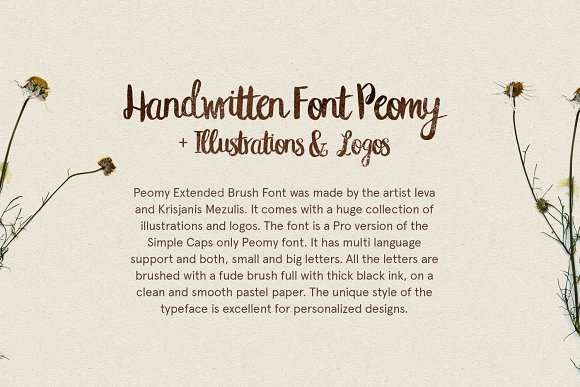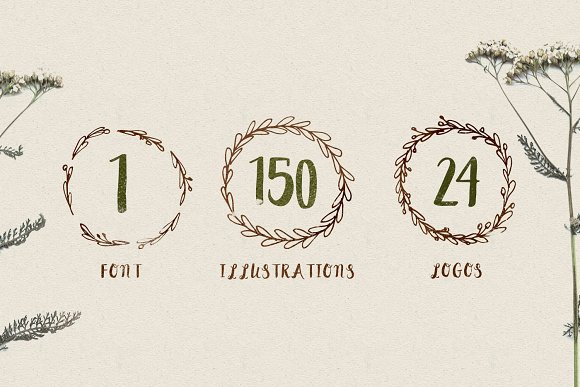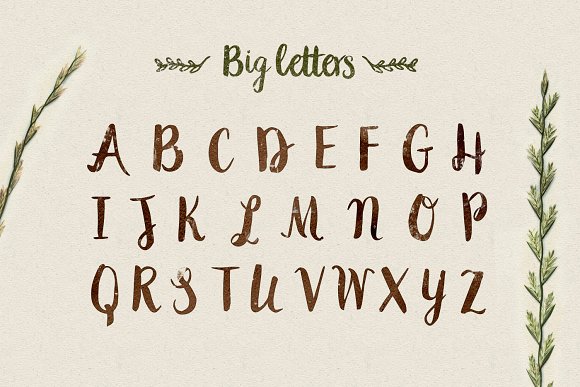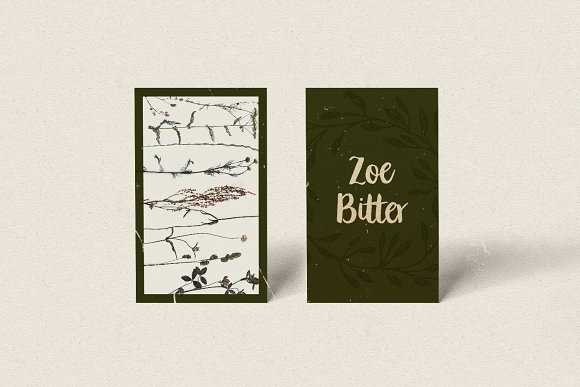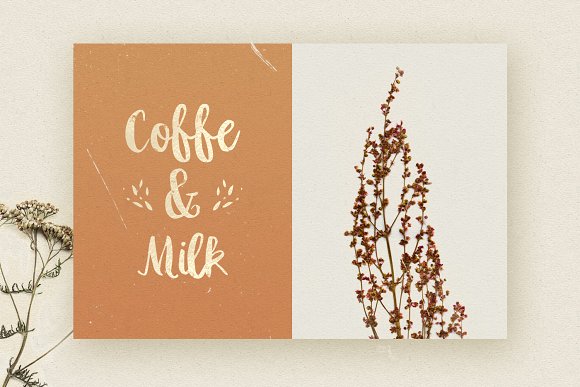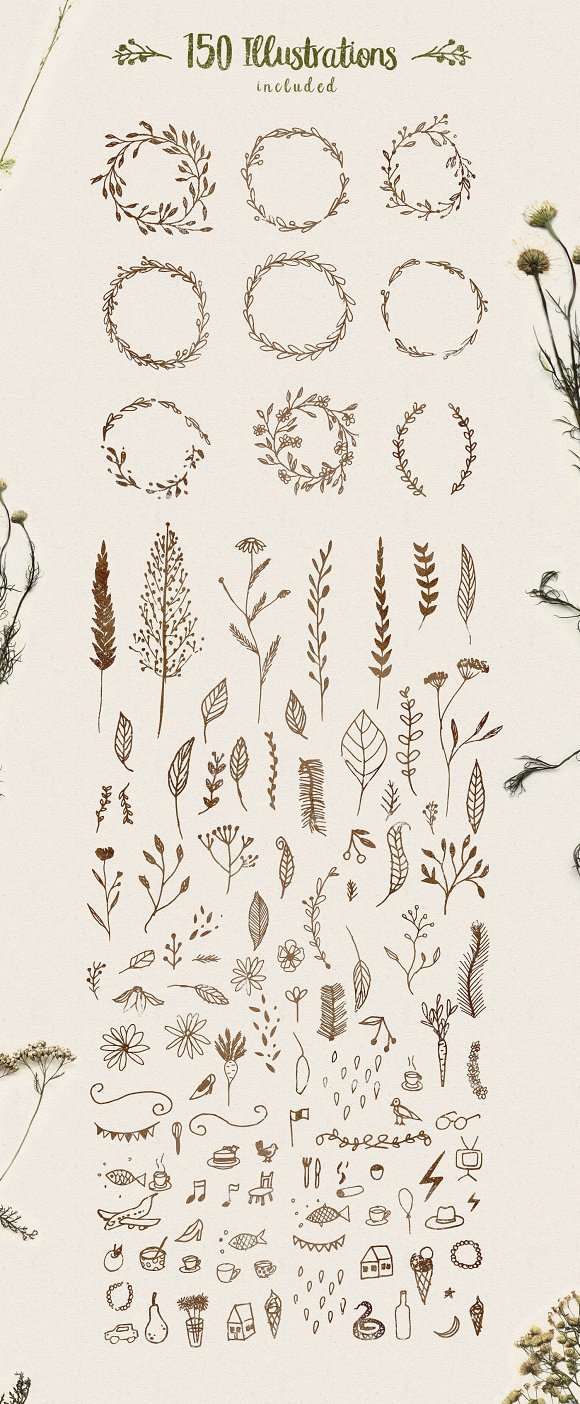
Peomy Extended Font & Illustrations
Peomy was made by the artist Ieva and Krisjanis Mezulis. Inspired by the lovely nature of forests and fields, after collecting flowers for a personal herbarium. All the letters are brushed with a fude brush full with thick black ink, on a clean and smooth pastel paper.
The font comes with a free huge collection nature inspired doodles, illustrated vectors and pre-designed logos. Best of all everything is super easy to use and edit 🙂
The font features both uppercase and lowercase letters, so you will have a wide range of characters to use in typographic work. It has updated open type features and advanced kerning, combined with multi-language support.